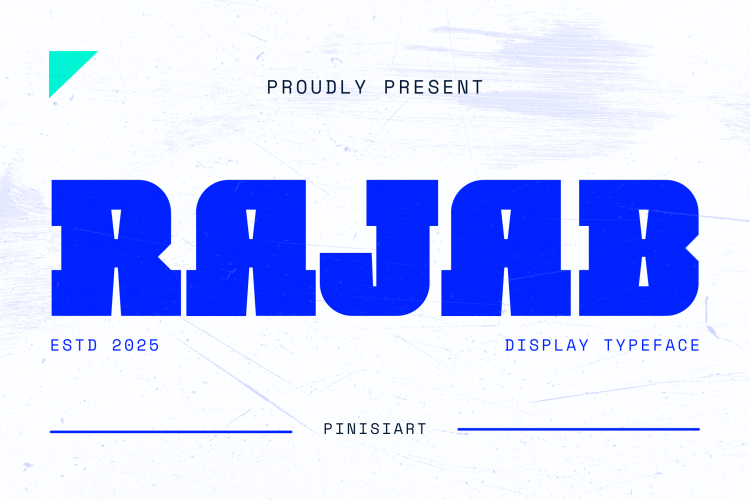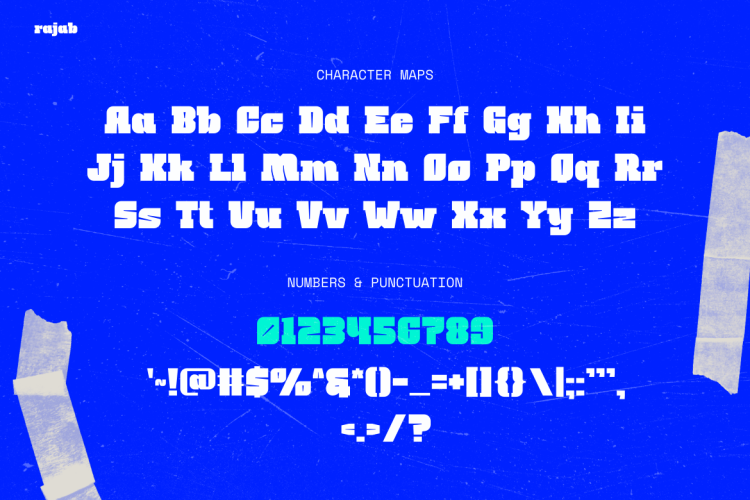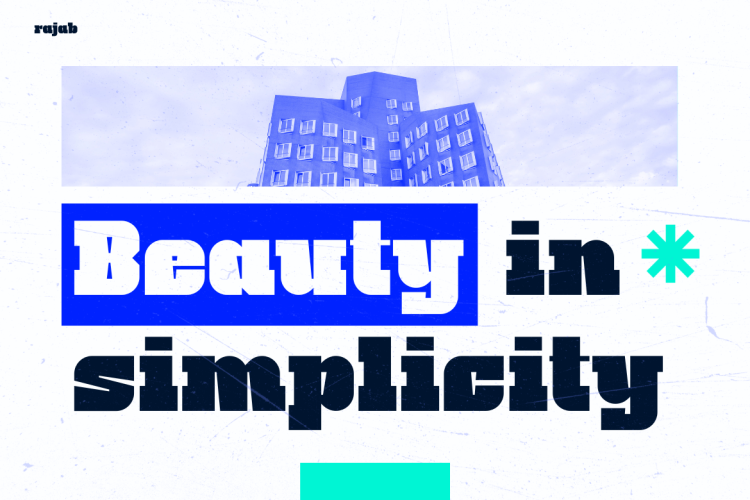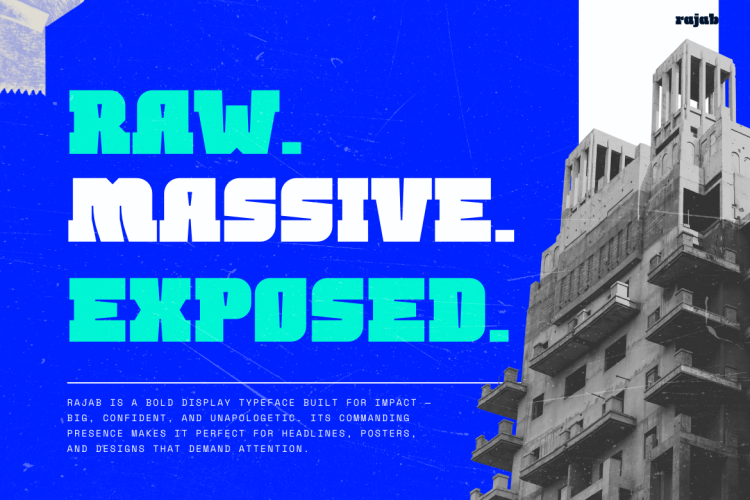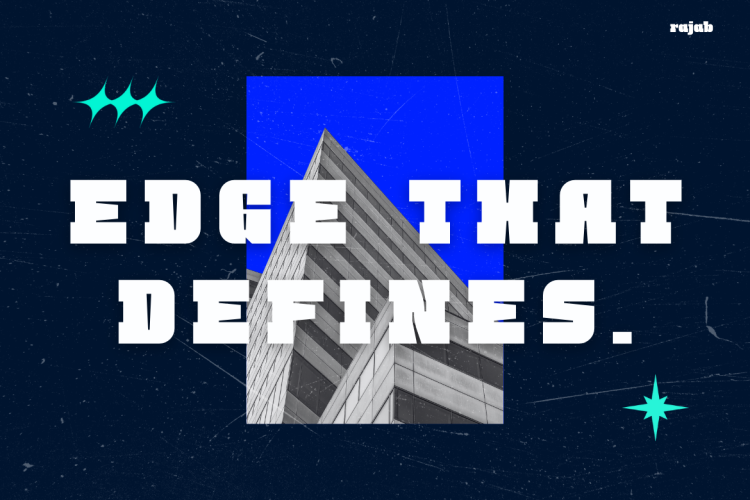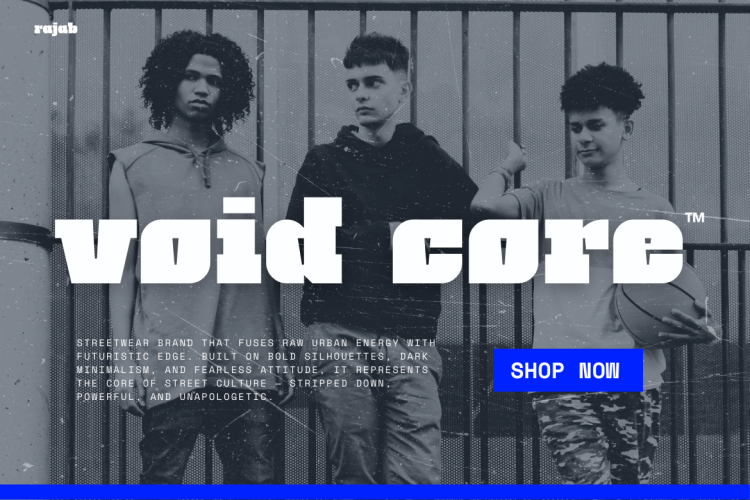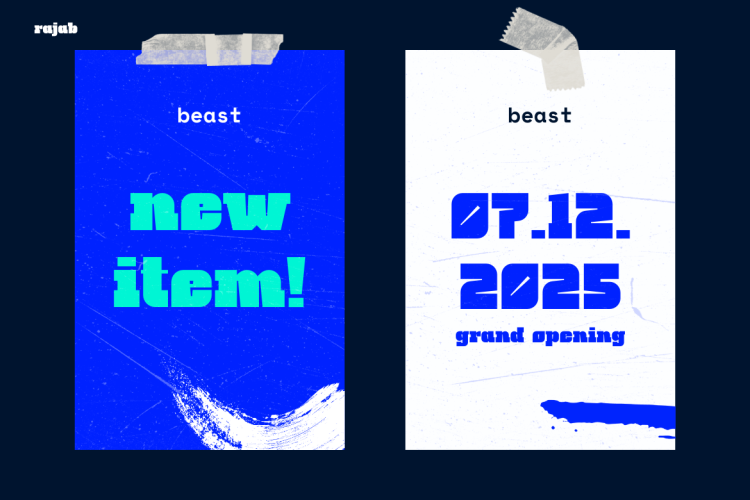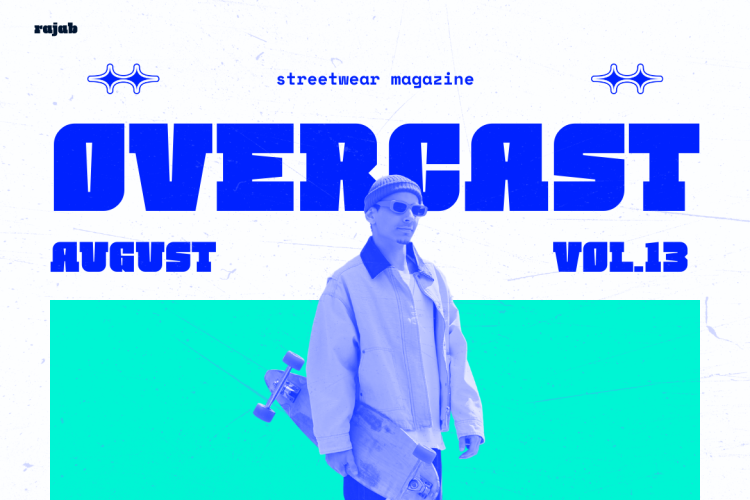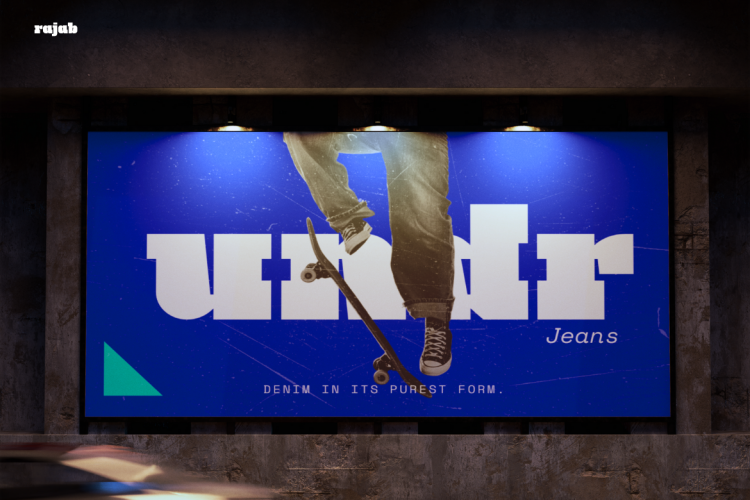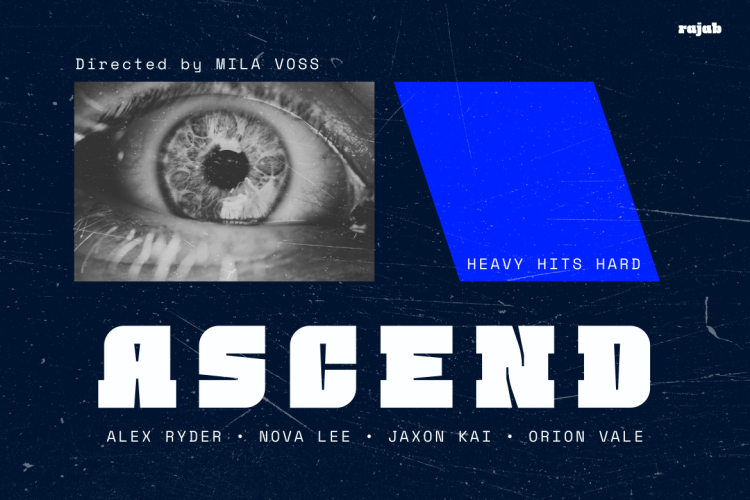
Instagram Font RAJAB is a bold, modern, and futuristic typeface that captures attention instantly. It features raw geometric edges, massive proportions, and striking aesthetics. Moreover, this font doesnโt just fill spaceโit dominates it. Each character looks powerful, stylish, and versatile. As a result, it works perfectly for digital branding, social media designs, and strong headlines. RAJAB combines sharp display details with smooth flow, and therefore creates balance between experimental design and readability. In addition, whether you use it in minimal layouts or edgy futuristic themes, your message will always stand out.
Instagram Font RAJABย Suitable For
Instagram Font RAJAB works well for designers, content creators, brands, and marketers who want impactful visuals. Furthermore, influencers and social media managers can use it to build posts that rise above crowded feeds. Fashion brands and streetwear labels will also find its raw edge perfect for urban aesthetics. In the same way, event promoters and music artists can rely on RAJAB to create posters, flyers, and album covers that grab attention fast. In addition, YouTubers, Twitch streamers, and podcasters benefit from its bold design. It gives thumbnails, channel art, and promos a modern edge. As a result, this versatile font adapts across industriesโfrom creative startups to lifestyle brandsโand keeps every project fresh, bold, and unforgettable. Even corporate teams and marketing agencies can apply RAJAB to presentations and campaign visuals, ensuring messages feel modern and compelling. Therefore, its range goes far beyond personal use and delivers professional impact.
In todayโs fast digital world, visuals matter more than ever. Therefore, Instagram Font RAJAB helps your design stand tall and speak louder. Moreover, itโs not just typographyโitโs a statement. If you want to transform your creative projects into bold, unforgettable experiences, RAJAB gives you the power. In addition, it allows you to elevate your content, define your voice, and stand out in every post. Finally, donโt just designโdominate. Add RAJAB to your collection today and let your ideas roar with unstoppable energy.